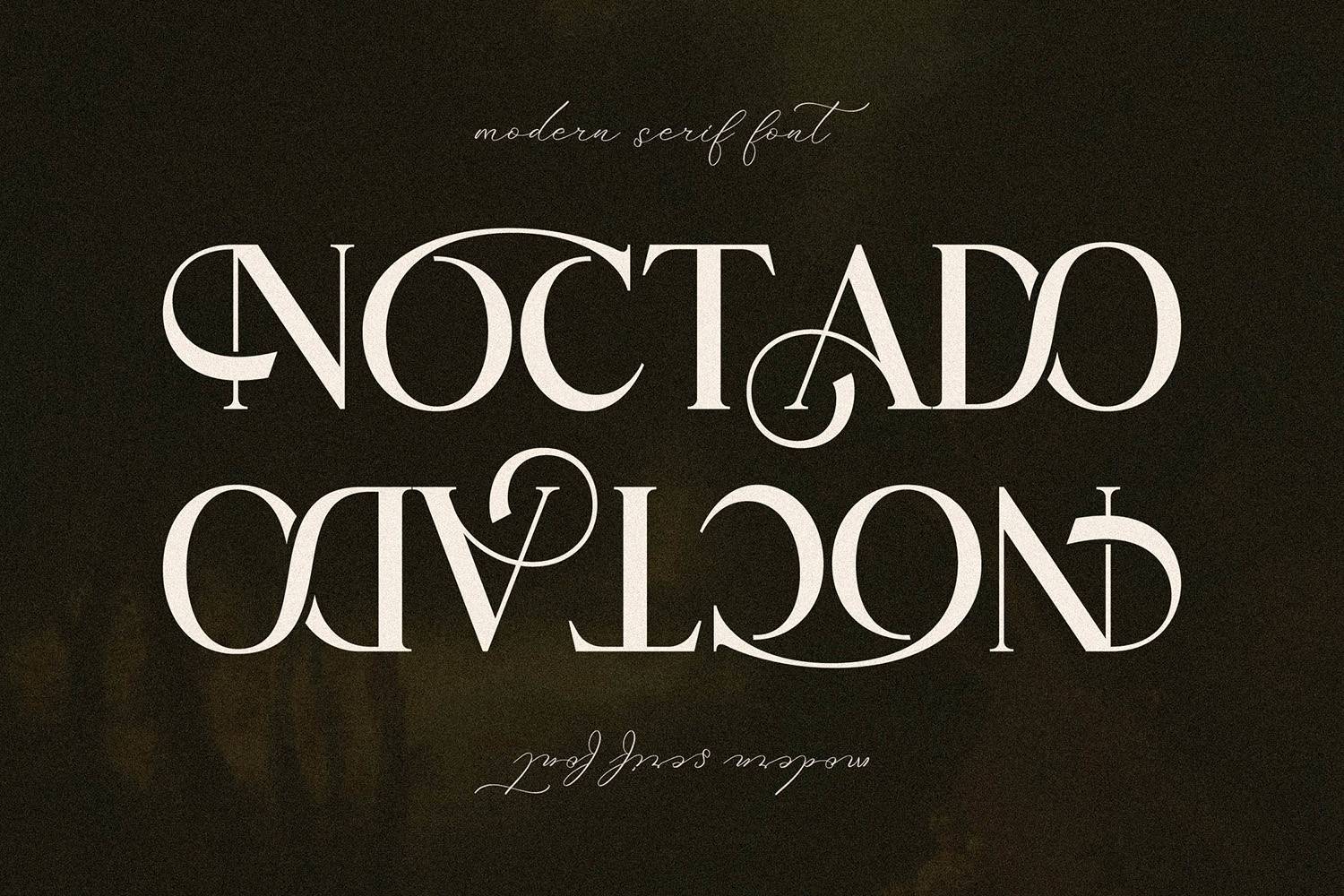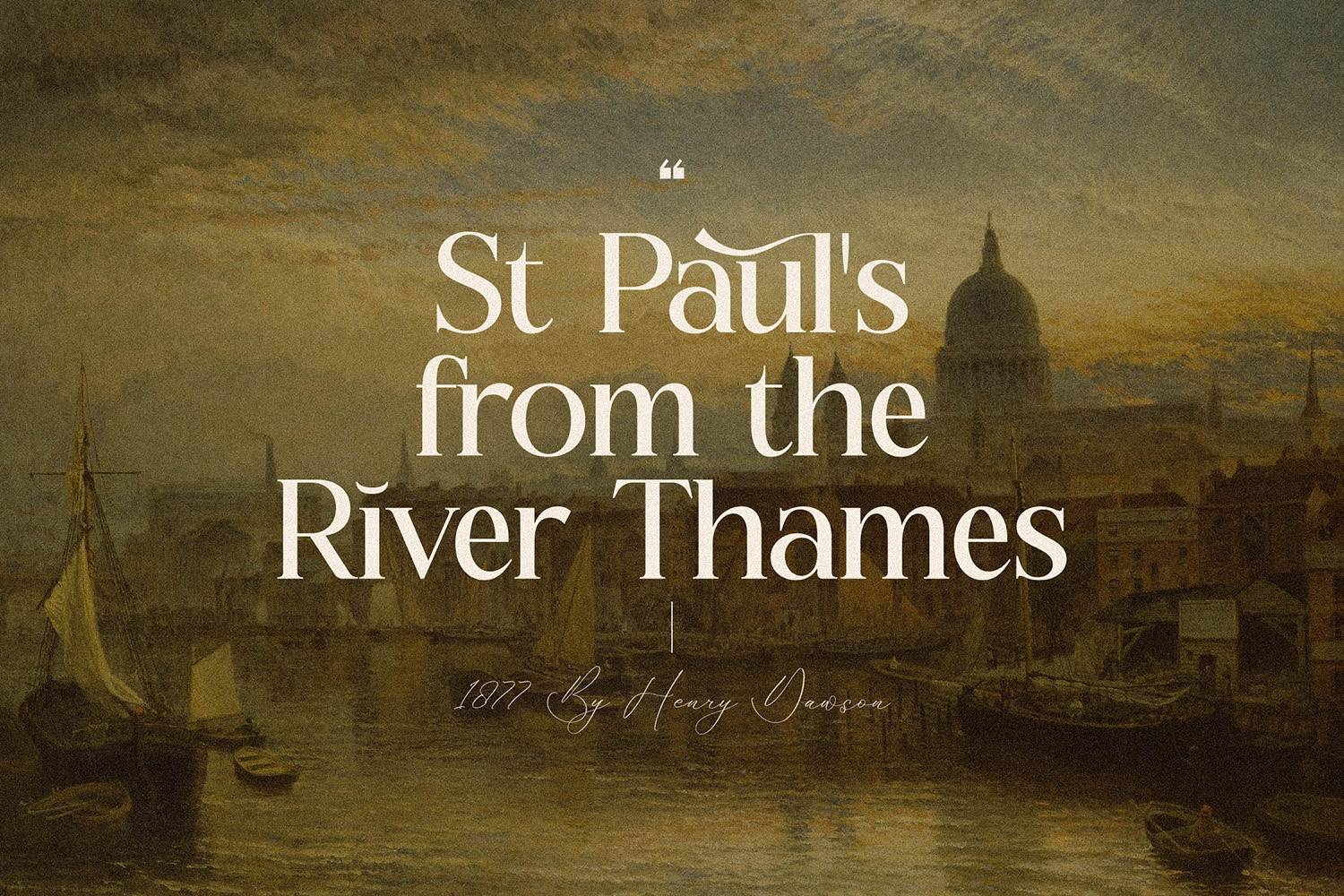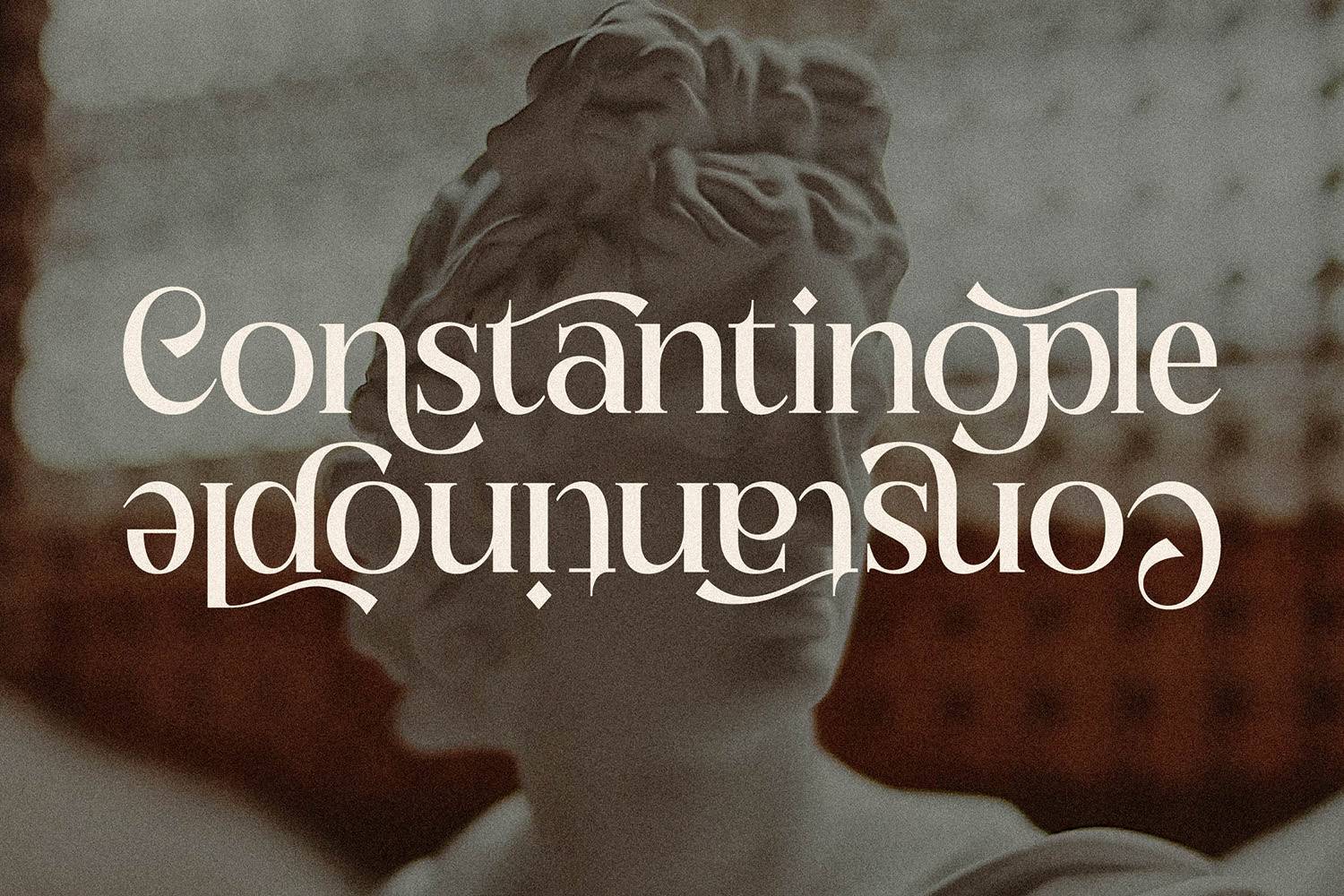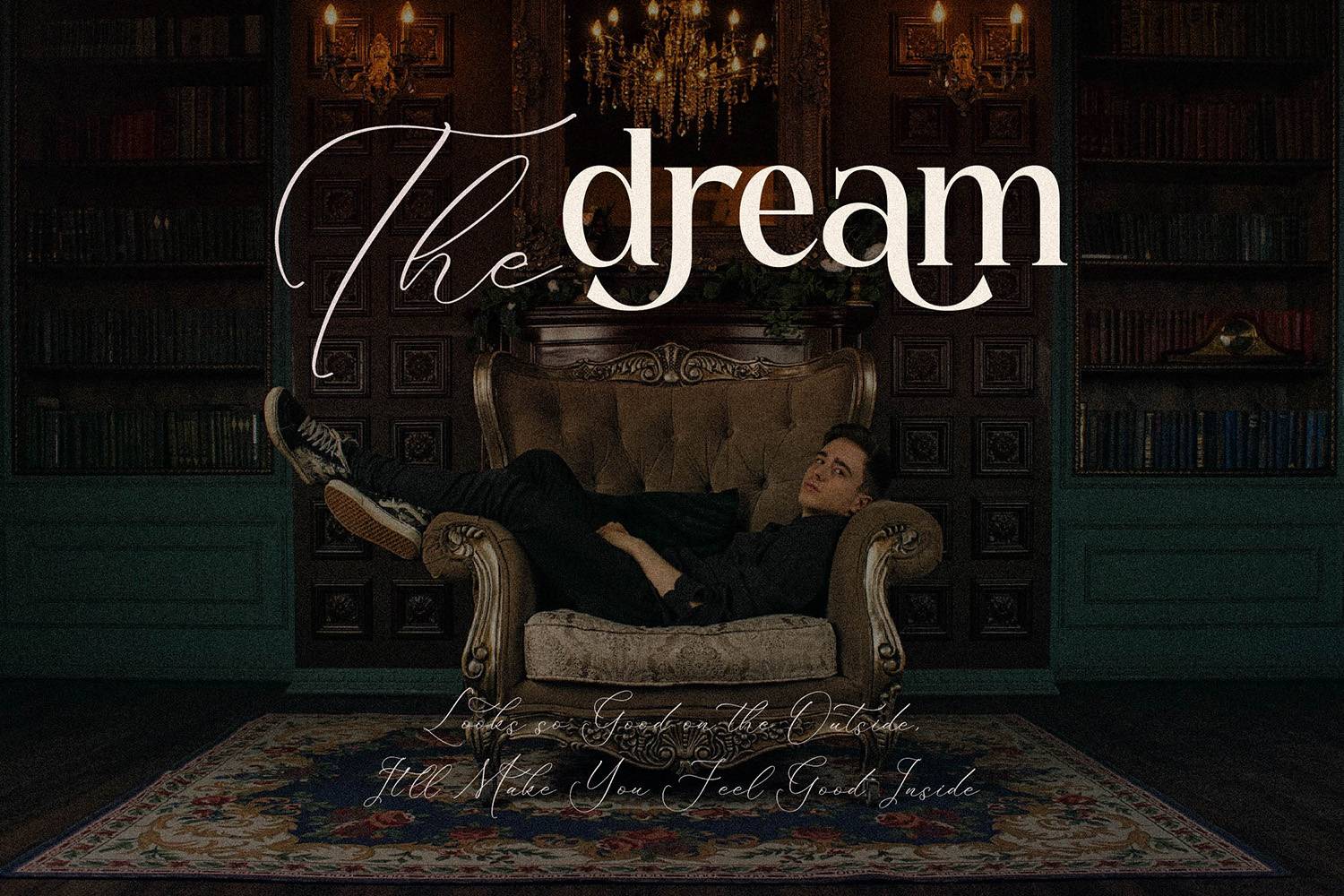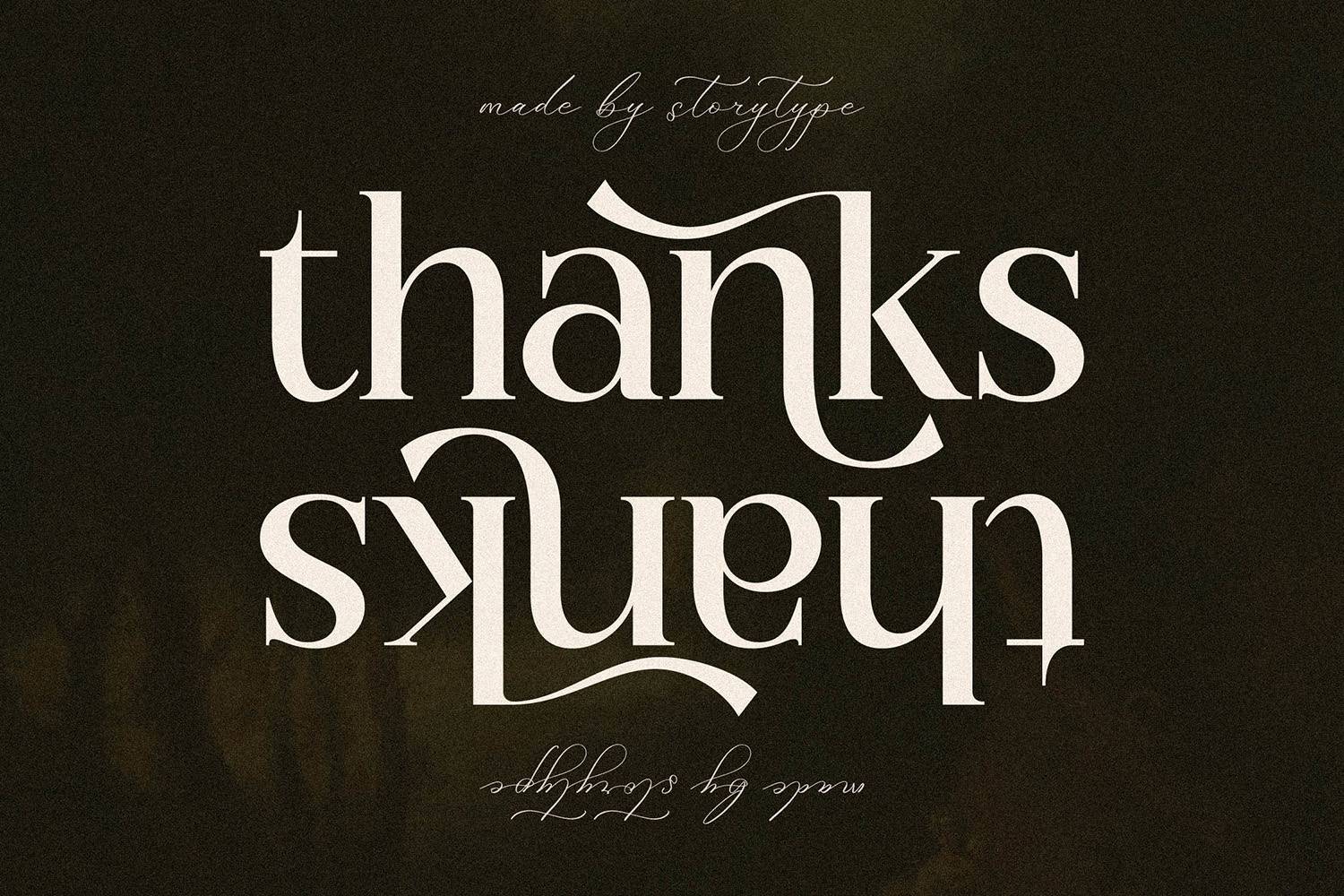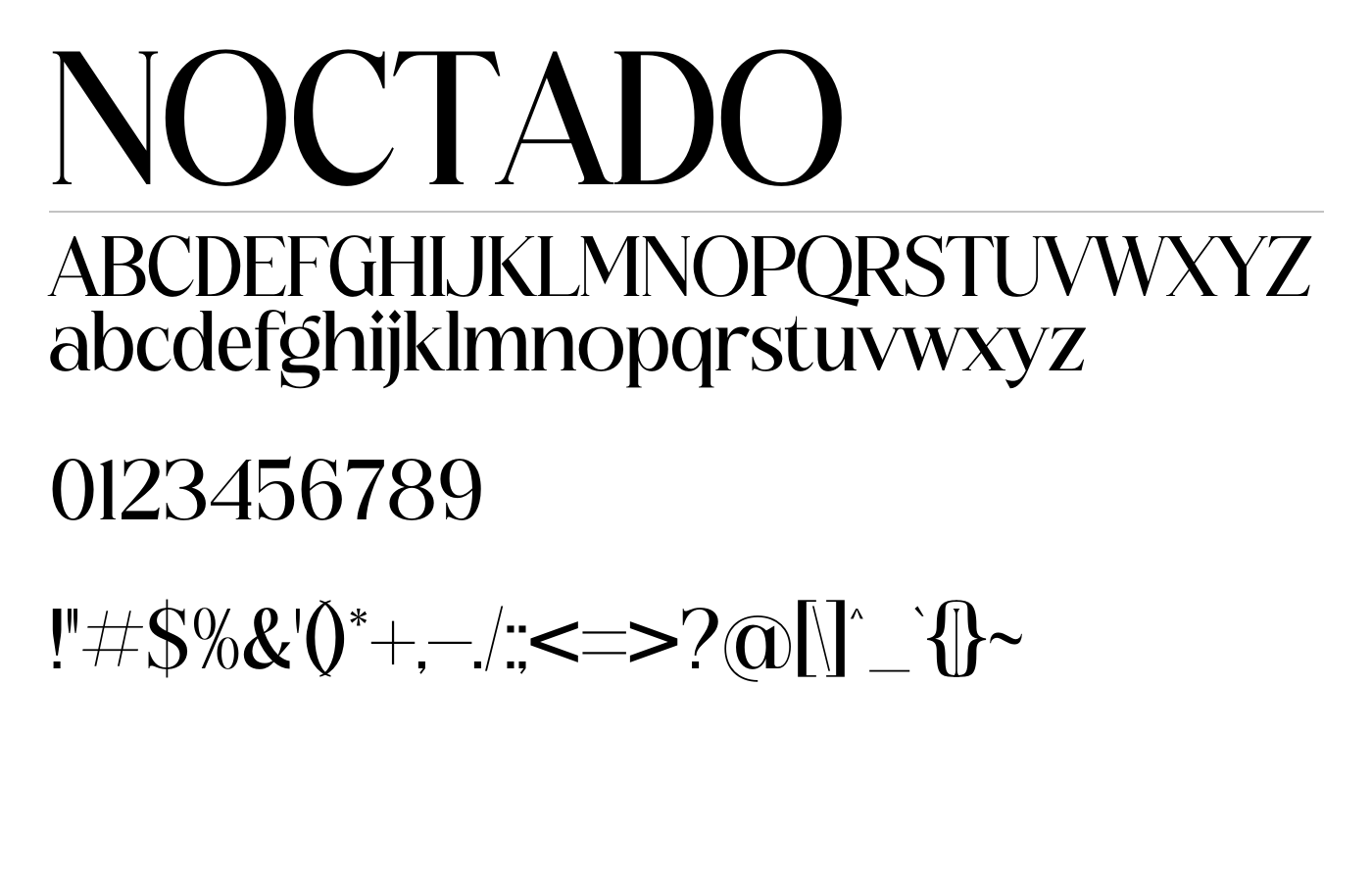
Noctado is a refined serif font characterized by its elegant high contrast between thick and thin strokes, slender serifs, and a tall, graceful x-height that creates a sophisticated, luxurious feel. Its sharp, delicate letterforms, including distinct single-story 'a' and 'g', make it ideal for upscale branding, editorial headlines, and fashion-focused design where a sense of timeless elegance and modern refinement is desired. This font works beautifully in contexts that call for a classic yet contemporary appearance, enhancing luxury, fashion, and high-end publishing projects with its polished and poised style.
Noctado Font
About Noctado Font